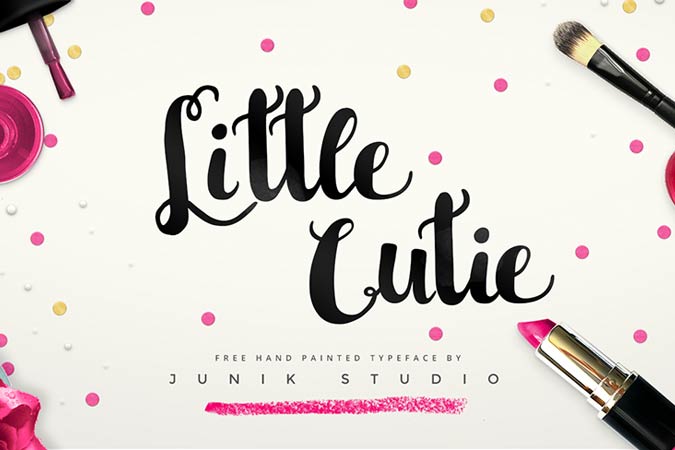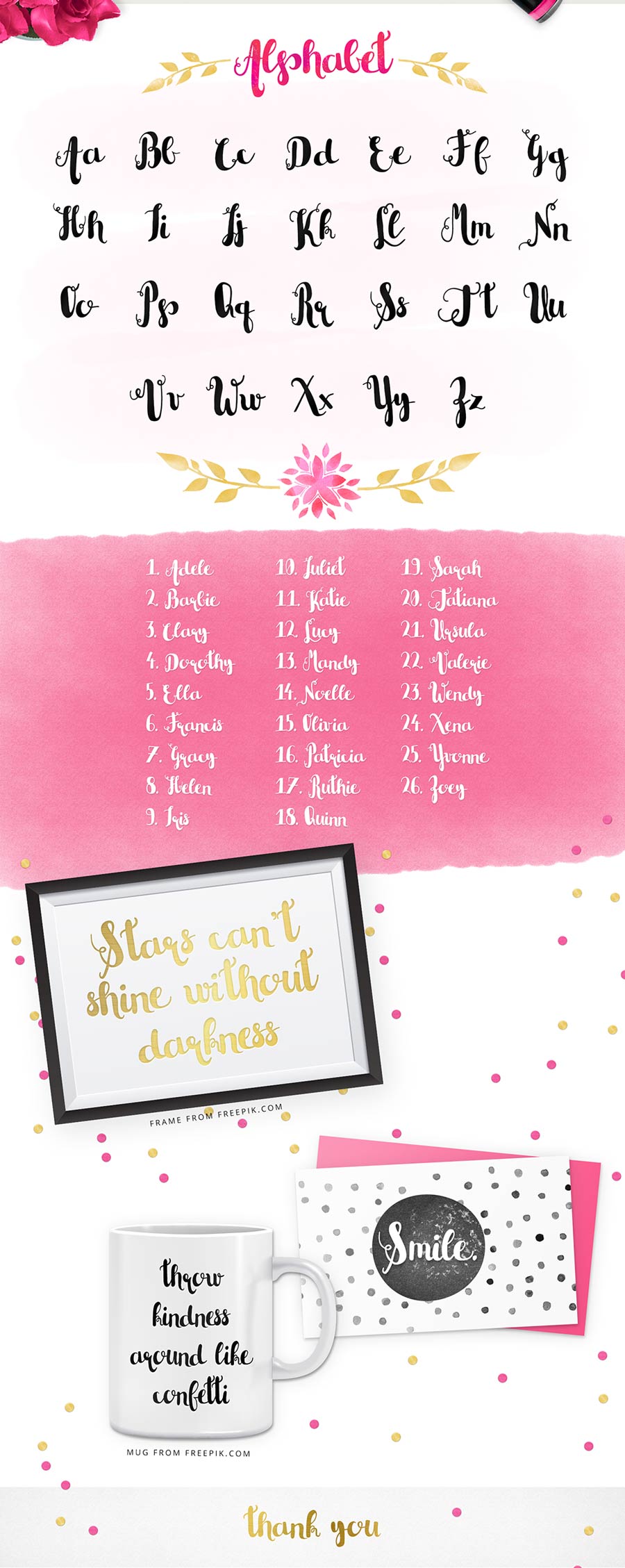
Little Cutie is a cute hand painted free font that has tiny little swashes at the end of the letters. This font is great for expressing a personal, authentic handcraft effect to it, for both web and print medium.